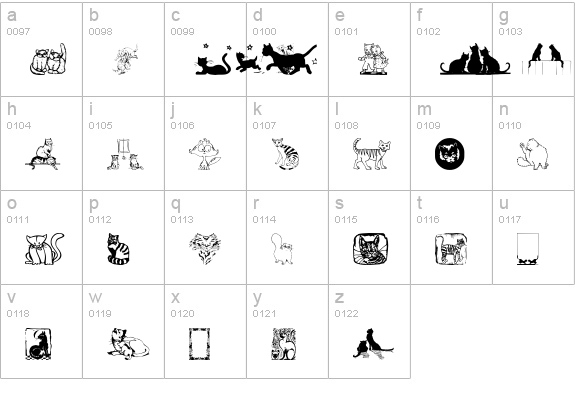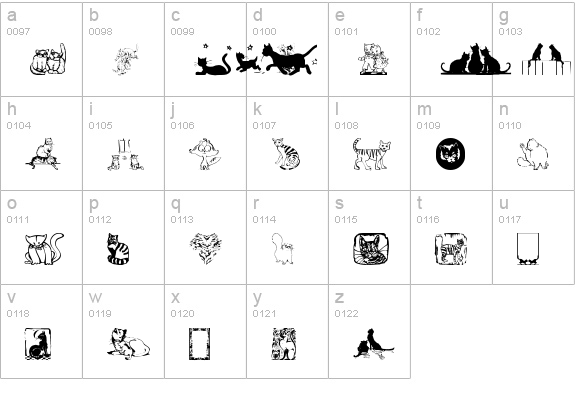
Introducing Karen's Kitties font, a delightful and playful typeface that will bring out the inner child in your designs. This font is filled with adorable illustrations of cute and mischievous kitties, making it perfect for adding a whimsical touch to any project. Karen's Kitties font is not only visually charming, but it also offers a wide range of versatility. Whether you want to create eye-catching headlines, charming greeting cards, or captivating social media posts, this font has got you covered. One of the best aspects of Karen's Kitties font is that it is completely free! Yes, you read that right. You can download this font without any charge at FontsMarket.com. It's a fantastic opportunity to add a touch of feline fun to your designs without breaking the bank. With its smooth curves and playful characters, Karen's Kitties font is a true standout in the world of typography. It effortlessly captures the essence of our beloved furry friends, making it a must-have for any cat lover or designer looking to add a touch of whimsy to their work. So why wait? Don't miss out on the opportunity to freely download Karen's Kitties font at FontsMarket.com. Unleash your creativity and let these adorable kitties bring a smile to your designs.